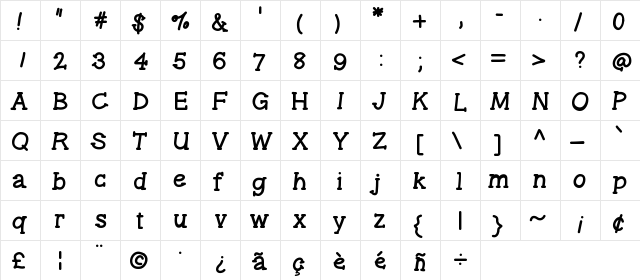
GelPenSerif Medium
Design Context for GelPenSerif Typeface
GelPenSerif carries the refined structure of traditional serif typography, with bracketed terminals and considered proportions that communicate credibility and craft.
Pro Tip: Set GelPenSerif with slightly loose tracking in headlines to let each letterform's detail read clearly at display sizes.